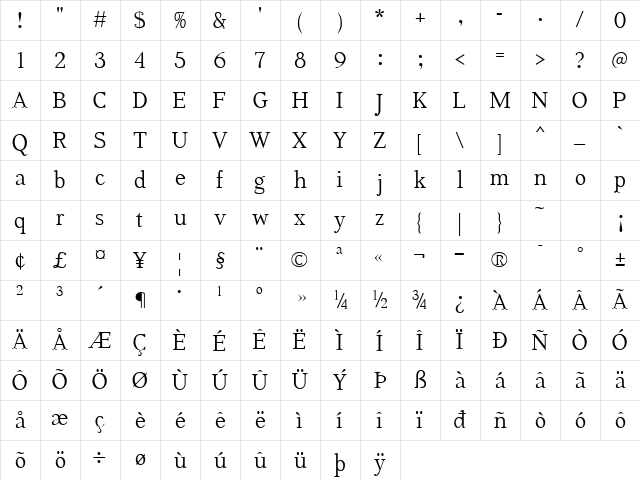
Aabced Regular Free Font
Aabced Regular
Aabced Family
Aabced Regular
Design Context for Aabced
Aabced is a composed and adaptable typeface that performs quietly and consistently across a wide range of design contexts.